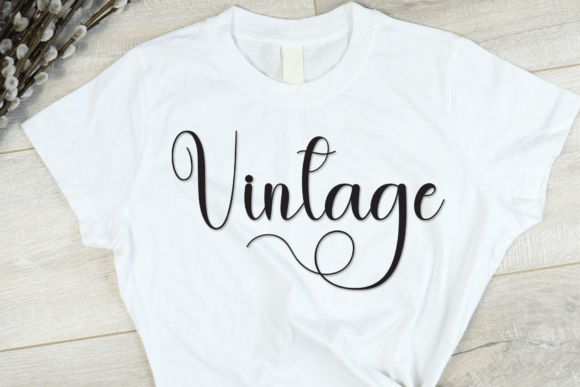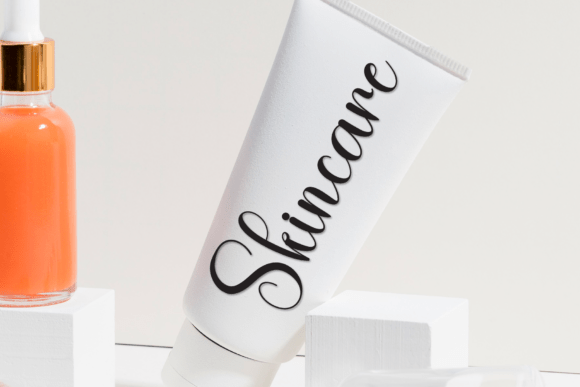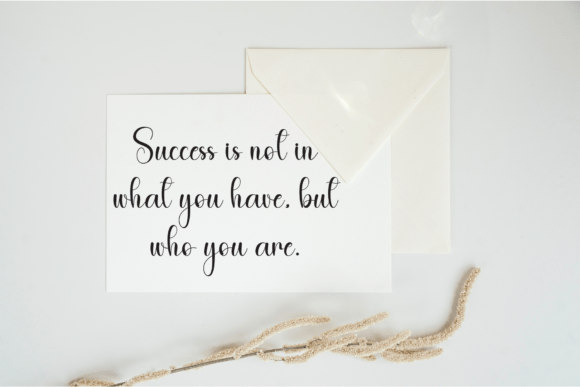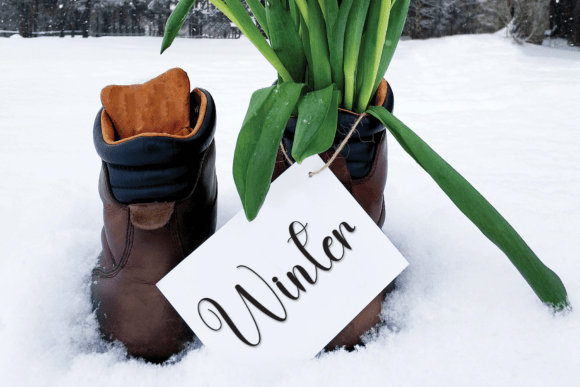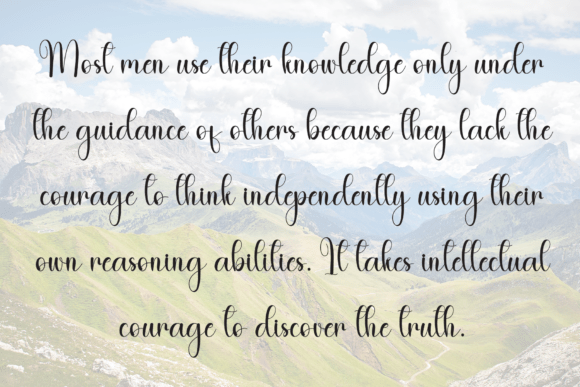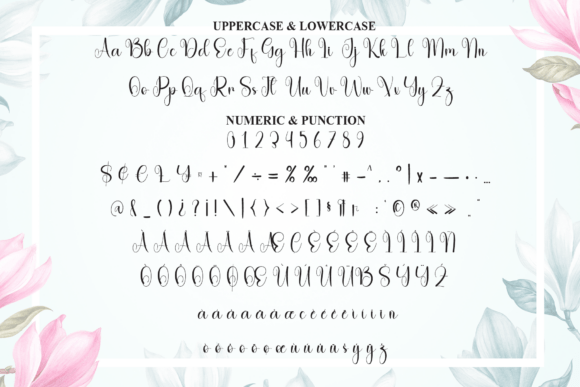
Introducing Clarity Font: The Sweet and Friendly Handwritten Display Font
Are you looking for a font that can add a touch of warmth and playfulness to your designs? Look no further than Clarity Font, a beautiful handwritten display font that is sure to capture the hearts of designers and crafters alike. With its endearing character and whimsical design, Clarity Font perfectly encapsulates the essence of affection and joy, making it ideal for a wide range of design projects.
The Charm of Clarity Font
Clarity Font is a sweet and friendly font that is designed to bring a sense of delight and wonder to your designs. Its handwritten style is reminiscent of a warm and fuzzy feeling, evoking memories of childhood and happy times. The font’s playful and whimsical design makes it perfect for accentuating wedding invitations, greeting cards, and other designs that require an added touch of personality and charm.
Key Features of Clarity Font
- Handwritten style: Clarity Font features a beautiful handwritten style that is both elegant and playful.
- Whimsical design: The font’s whimsical design makes it perfect for adding a touch of personality and charm to your designs.
- Endearing character: Clarity Font has an endearing character that is sure to capture the hearts of your audience.
- Playful and warm: The font’s playful and warm style makes it ideal for designs that require a touch of affection and joy.
Uses for Clarity Font
Clarity Font is a versatile font that can be used for a wide range of design projects, including:
- Wedding invitations: Add a touch of romance and whimsy to your wedding invitations with Clarity Font.
- Greeting cards: Create beautiful and heartfelt greeting cards with Clarity Font.
- Social media graphics: Add a touch of personality and charm to your social media graphics with Clarity Font.
- Branding and packaging: Use Clarity Font to create unique and eye-catching branding and packaging designs.
Why Choose Clarity Font?
There are many reasons why Clarity Font stands out from other fonts, including:
- Unique and eye-catching design: Clarity Font has a unique and eye-catching design that is sure to grab attention.
- Easy to read: Despite its playful and whimsical design, Clarity Font is easy to read and understand.
- Versatile: Clarity Font can be used for a wide range of design projects, from wedding invitations to social media graphics.
- High-quality: Clarity Font is a high-quality font that is designed to deliver exceptional results.
Tips for Using Clarity Font
Here are a few tips for using Clarity Font in your designs:
- Use it sparingly: Clarity Font is a bold and eye-catching font, so use it sparingly to avoid overwhelming your design.
- Pair it with other fonts: Clarity Font pairs well with other fonts, so experiment with different combinations to find the perfect look for your design.
- Experiment with colors: Clarity Font looks great in a variety of colors, so experiment with different colors to find the perfect look for your design.
Clarity Font is a beautiful and versatile handwritten display font that is sure to add a touch of warmth and playfulness to your designs. With its endearing character and whimsical design, Clarity Font perfectly encapsulates the essence of affection and joy, making it ideal for a wide range of design projects. Whether you’re a designer or crafter, Clarity Font is a great choice for anyone looking to create remarkable designs that radiate a delightful and captivating aesthetic.